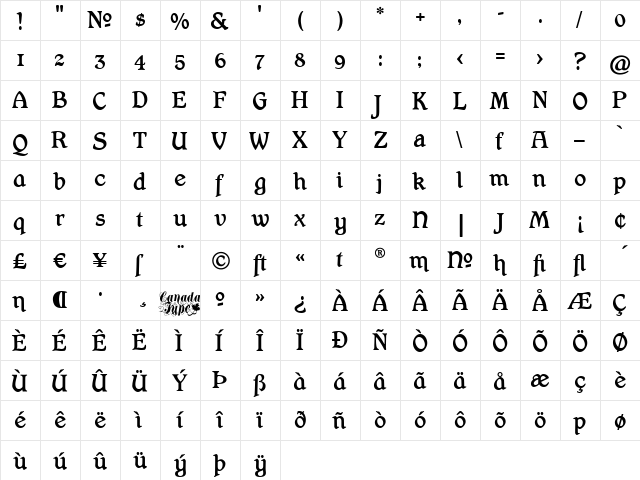
Hamlet OsF Regular
Design Context for Hamlet OsF Typeface
Hamlet OsF is a composed and adaptable typeface that performs quietly and consistently across a wide range of design contexts.